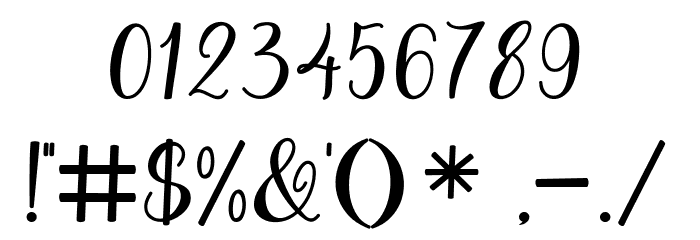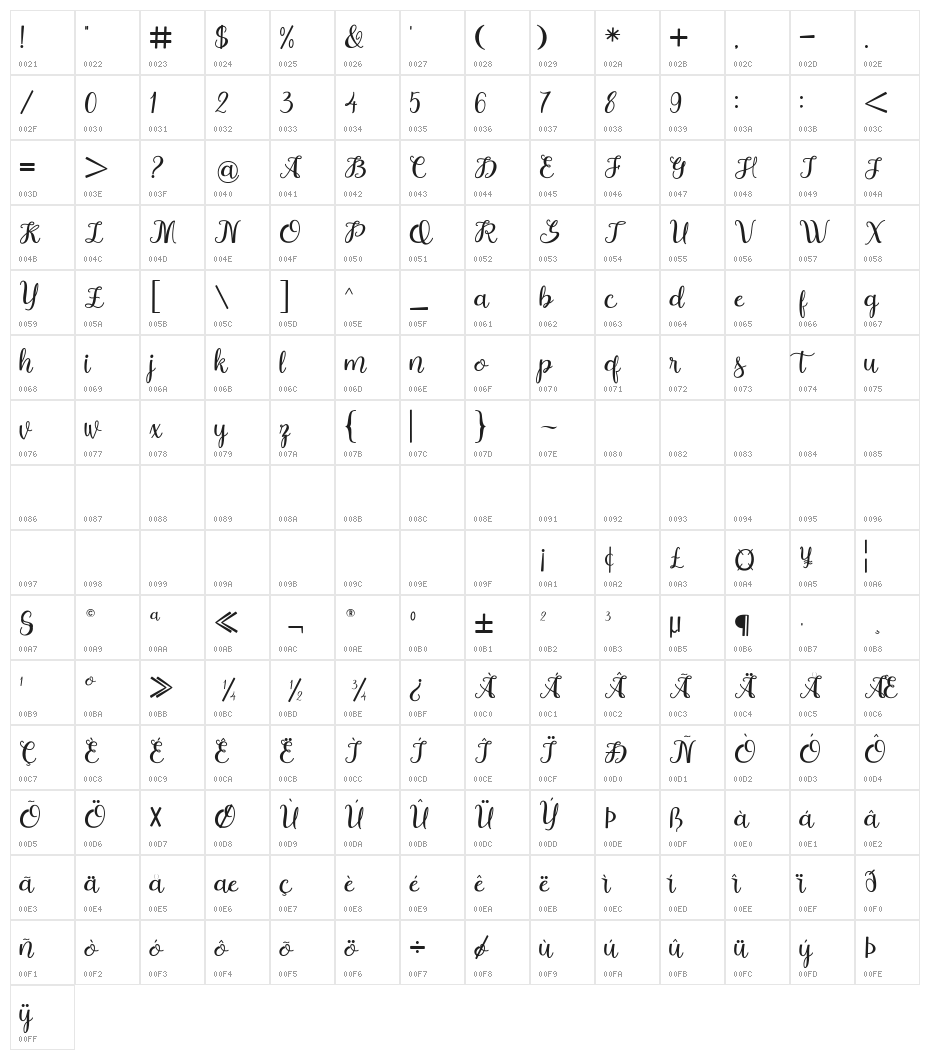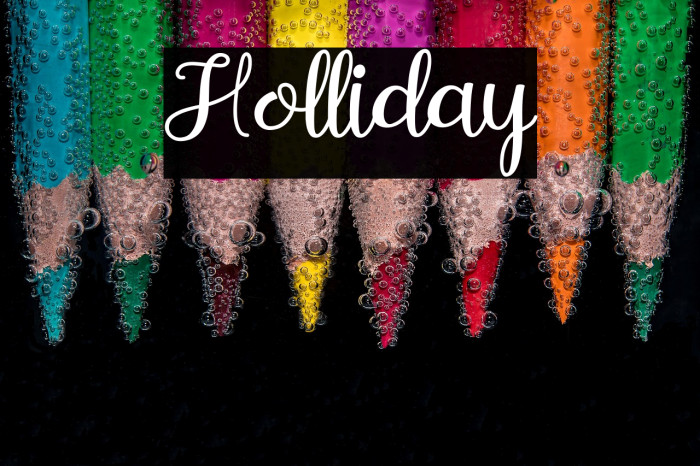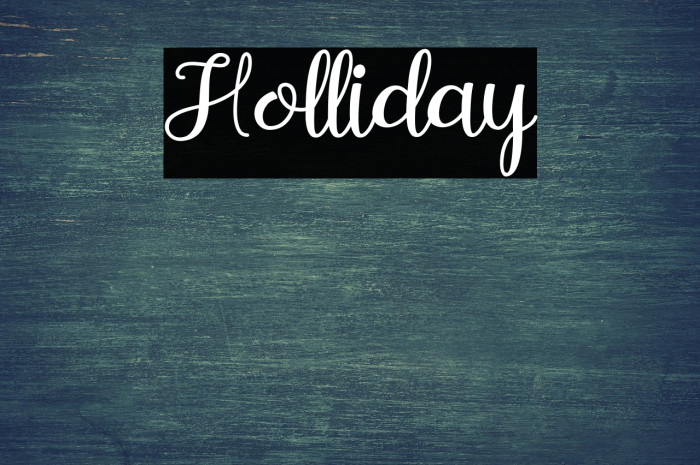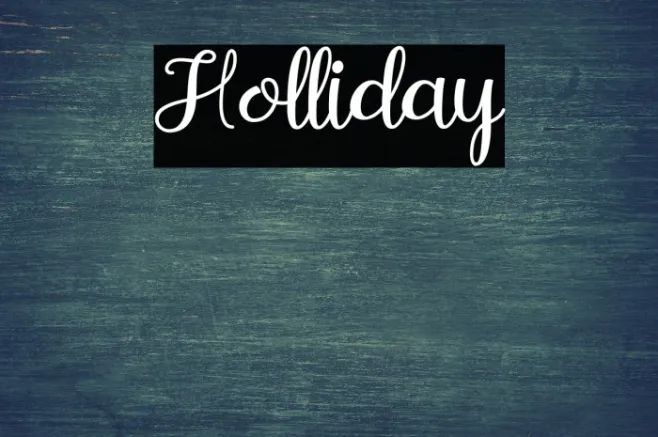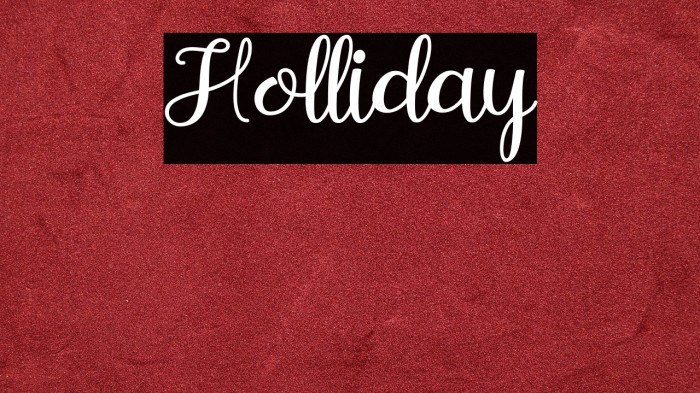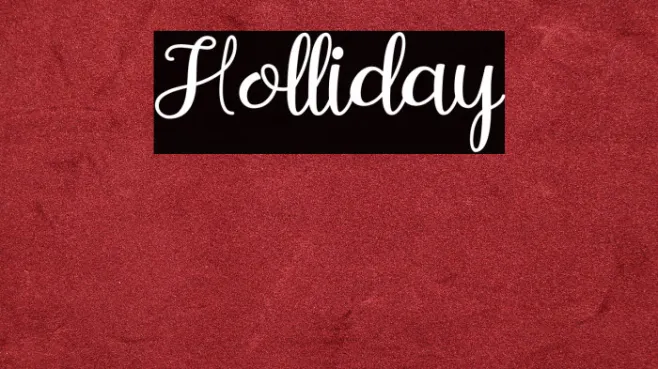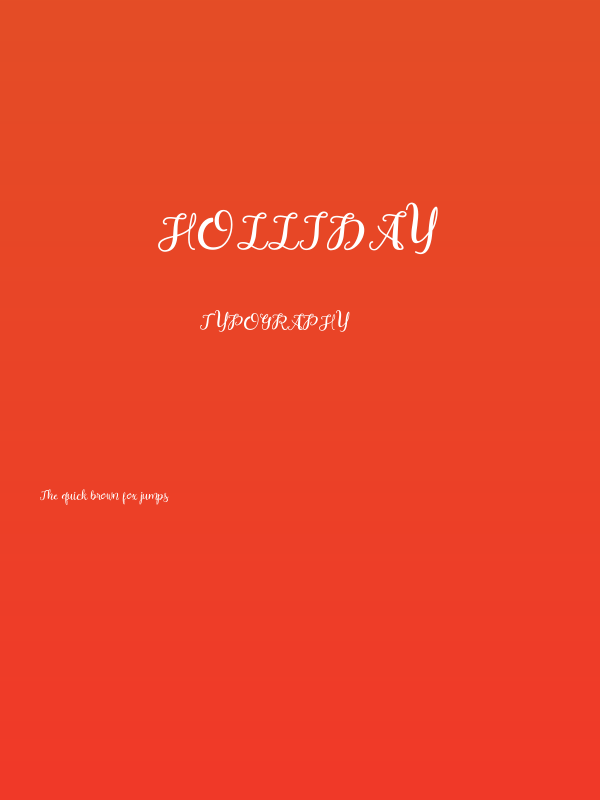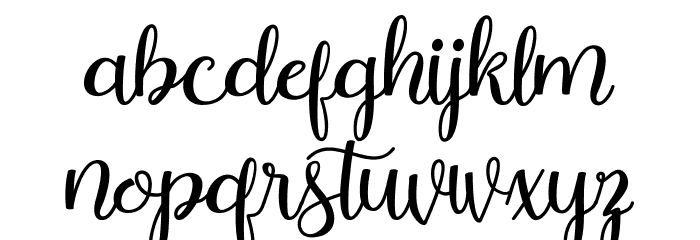
Holliday Font
Holliday Description
This font features a playful and elegant script style with smooth, flowing lines that give it a handwritten appearance. The uppercase letters are ornate, with distinctive loops and flourishes, while the lowercase letters maintain a consistent, cursive flow. The numbers are clear and legible, matching the overall style of the alphabet. Special characters are creatively integrated, maintaining the font's decorative nature. This font exudes a sense of charm and sophistication, making it suitable for a variety of creative projects.
| Proposed Projects | Ideal for wedding invitations, greeting cards, branding, and logo design, where a touch of elegance and personality is desired. |